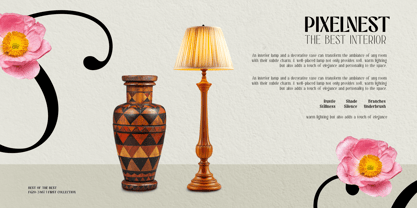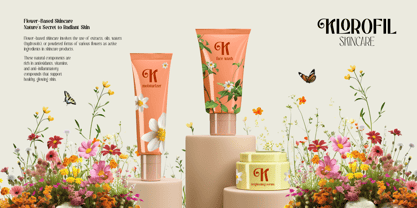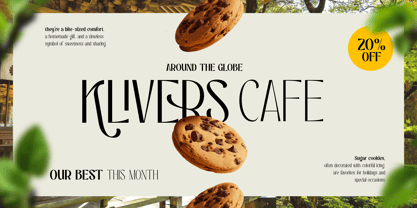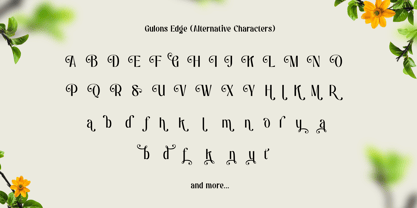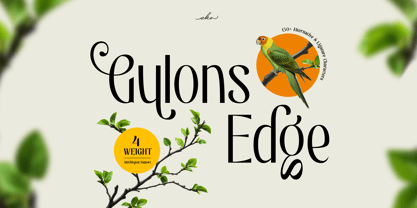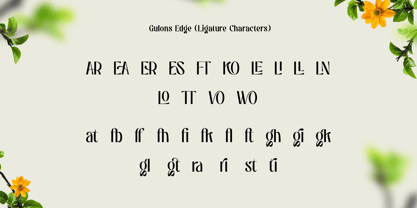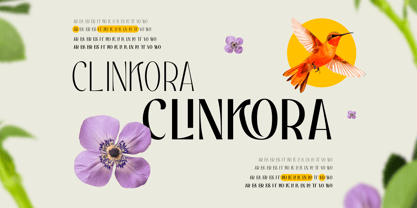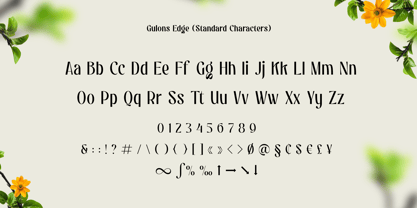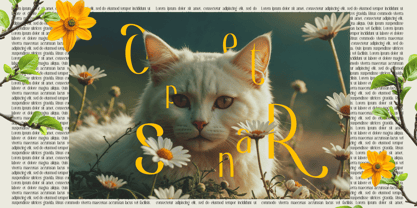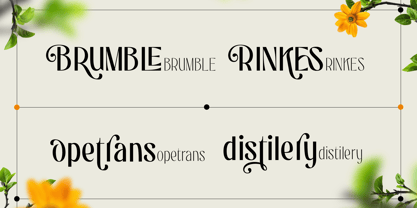
Gulons Edge
by Ekahermawan
The Gulons Edge Font Family was designed by Putu Eka Hermawan and published by Ekahermawan. Gulons Edge contains 4 styles and family package options. More about this family
Say hello to Gulons Edge, a striking sans serif display font designed to give your work a clean, confident edge. With 4 versatile weights ranging from Thin to Bold, Gulons Edge adapts effortlessly to a wide range of creative needs—whether you're crafting logos, headlines, packaging, or branding materials. Packed with over 150 alternates and ligatures, this font offers incredible flexibility to experiment with layout and style, allowing you to create unique, eye-catching designs with ease. Built for both beauty and function, Gulons Edge also includes full multilingual support, making it a powerful asset for global projects and professional design work.
Key Features:
- 4 distinct weights: Thin, Light, Regular, Bold
- 150+ alternates and ligatures
- Ideal for branding, headlines, posters, and editorial use
- Clean, geometric design for strong visual impact
- Multilingual support included
Whether you're designing a brand identity or looking to make a statement in your next project, Gulons Edge is the perfect finishing touch to help your typography shine.